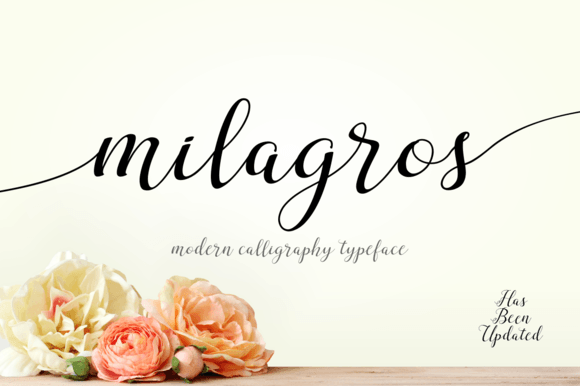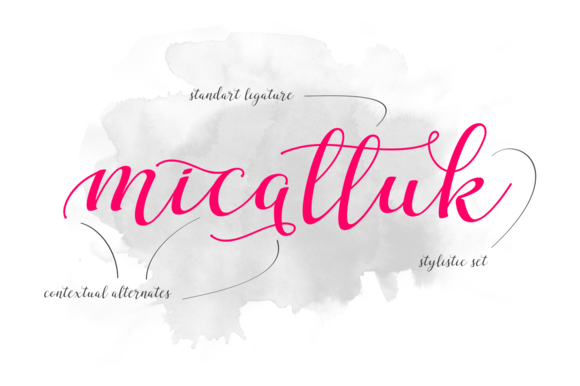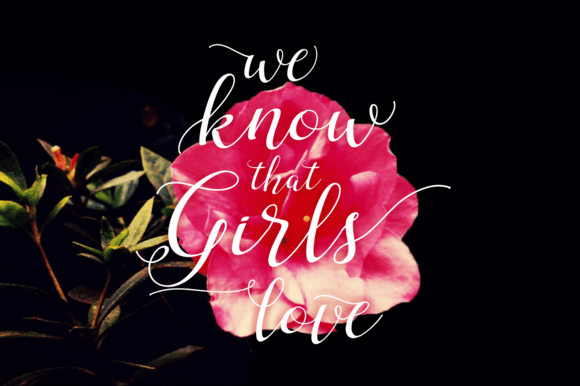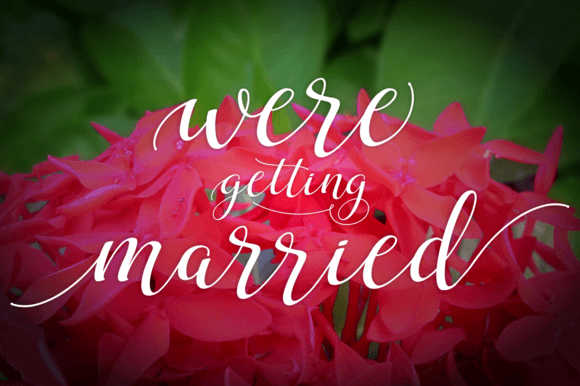
Milagros Font
About Milagros Font
Milagros Script is a handwritten, modern calligraphy typeface. It has a dancing baseline and will give your design an elegant touch, It can be used for various purposes such as headings, logos, invitations, t-shirt designs, greeting cards, posters, labels, book covers, brochures, and much more!